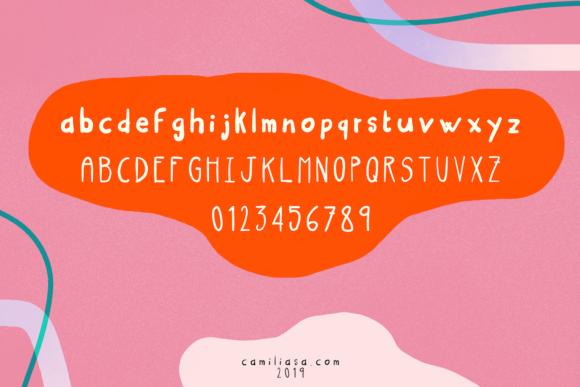
HomePersonal Use FreeBlast Personal Use Free Blast FacebookXPinterestWhatsApp 1 of 2 About Blast Font Blast is a sweet and friendly handwritten font. Its natural and unique style makes it incredibly fitting to a large pool of designs. The only limit is your imagination! DOWNLOAD ON CREATIVE FABRICAThis font is sold and delivered by Creative Fabrica. Font Canyon may earn a commission if you buy through this link. People also explored Nisland Font Serath Font Moretimes Font Font Orlando Font Secret Recipe Rhonely Font Words Font Romantyc Goblins Font Roadistic Font 390 0 TagsBarbara Blast Font Previous articleLeorioNext articleBaby Mollusca LEAVE A REPLY Cancel reply Comment: Please enter your comment! Name:* Please enter your name here Email:* You have entered an incorrect email address! Please enter your email address here Website: Save my name, email, and website in this browser for the next time I comment. Personal Use Free Houstonville Personal Use Free Read more about this font Joystix Monospace Personal Use Free Read more about this font No Virus Personal Use Free Read more about this font Midnight Show Personal Use Free Read more about this font BLOG 5 Fonts That Will Dominate Design Trends in 2026 5 Fonts for 2026 That Will Dominate Design Trends Typography plays a critical role in visual communication, and as we look ahead to 2026, it’s... To increase your work productivity, choose the most readable fonts. Where to Buy American Fonts Online in 2024 Exploring Font Trends